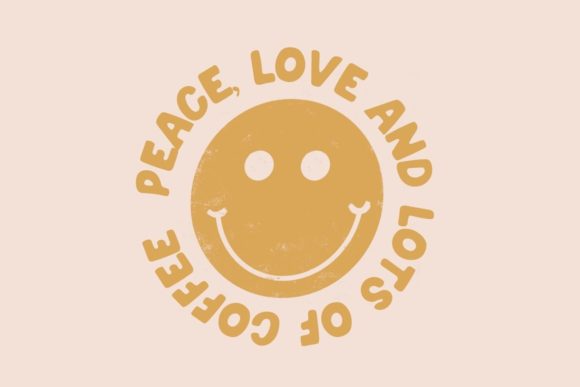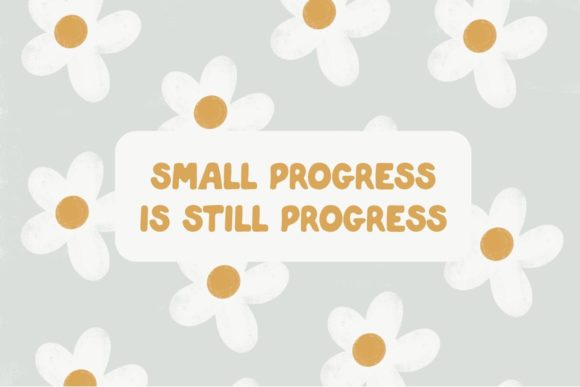
Introduction to Peaches and Cream Font
Remember that moment when you stumble upon the perfect design resource, and your creative project suddenly comes alive? For designers, finding that elusive element can be a game-changer. Whether you’re crafting a whimsical cartoon, designing a children’s game, or creating a quote that sparks joy, having the right font can make all the difference.
That’s where the Peaches and Cream Font comes in – a sweet, bold, and paint-brushed handwritten font that’s sure to add a touch of warmth to your designs. With its high-quality design and transparent background, this font is a versatile design resource that can be used for a wide range of creative projects.
Key Features of Peaches and Cream Font
- Unique Watercolor Design: The Peaches and Cream Font features a beautiful watercolor design, making it perfect for creative projects that require a touch of elegance and sophistication.
- Transparent Background: This font has a transparent background, allowing you to easily combine it with other design elements and create a seamless look.
- High-Quality Design Resource: Peaches and Cream Font is a high-quality design resource that is ideal for designers, artists, and crafters who want to add a personal touch to their work.
- Perfect for Hand-Drawn and Watercolor Designs: The Peaches and Cream Font is particularly well-suited for hand-drawn and watercolor designs, adding a touch of whimsy and charm to any creative project.
Honest Review: Peaches and Cream Font
I recently stumbled upon the Peaches and Cream Font, and I have to say, it’s been a game-changer for my creative projects. This font is perfect for anyone looking to add a touch of whimsy and elegance to their design.
- High-quality design: The Peaches and Cream Font is incredibly detailed and has a smooth, polished look.
What doesn’t work well:
- Limited font weights: While the font is beautiful, it’s limited to a few weights, which can be a bit restrictive for some projects.
- Not ideal for small text: The font is best used for larger text sizes, as it can become difficult to read at smaller sizes.
Overall impression: I’m thoroughly impressed with the Peaches and Cream Font. It’s a high-quality design resource that’s perfect for creative projects. While it may have some limitations, it’s still a fantastic addition to any designer’s toolkit.
Common Use Cases for Peaches and Cream Font
The Peaches and Cream Font is perfect for various design projects, including wedding invitations, baby shower invitations, and other creative projects that require a touch of whimsy and elegance.